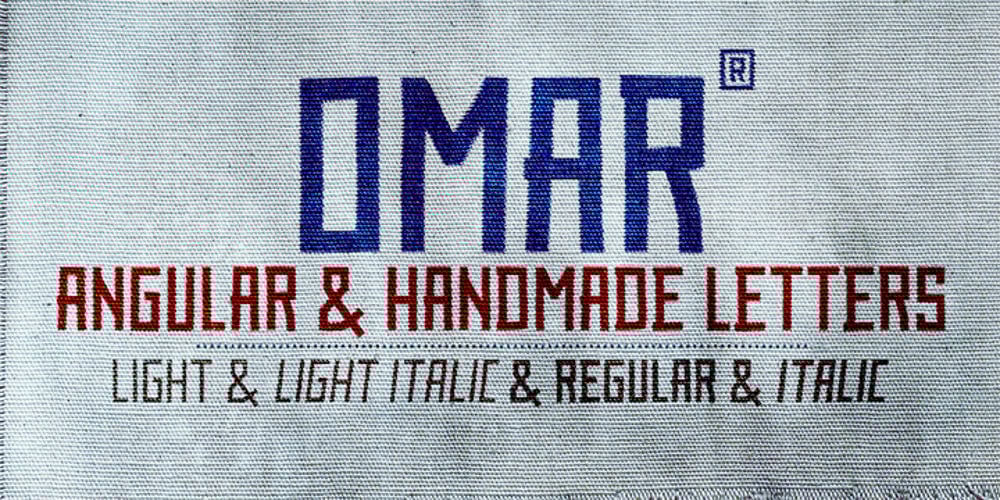
Omar
Omar font
Omar Font Family was designed by Ahmet Altun and published by Ahmet Altun. Omar contains 1 styles and family package options. The Omar Font was completely created by graphic tablet. Omar font family comes in two weights; Normal and Italic. They’re all capital but lowercase and capital letters are different from each other.It is legible in small type sizes. With its decorative view, you can get matchless products in typographic works, t-shirt prints, posters, logos and every kind of graphic works.